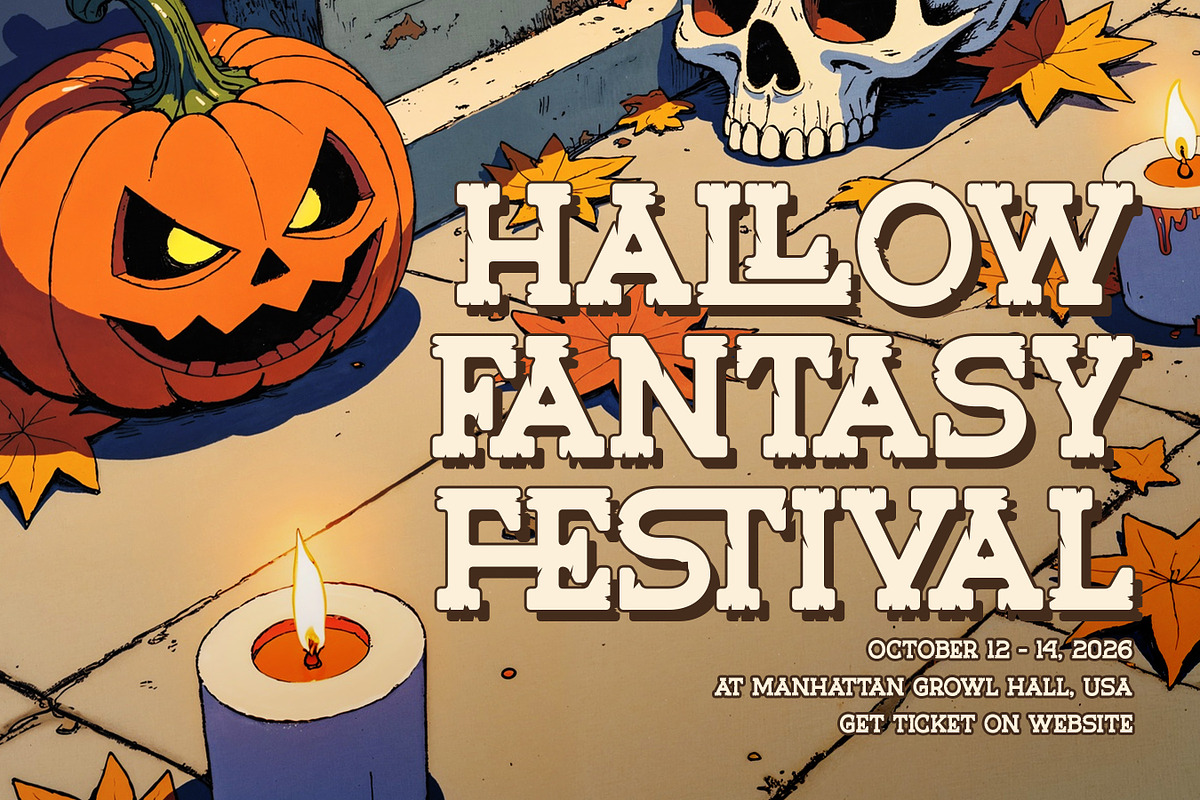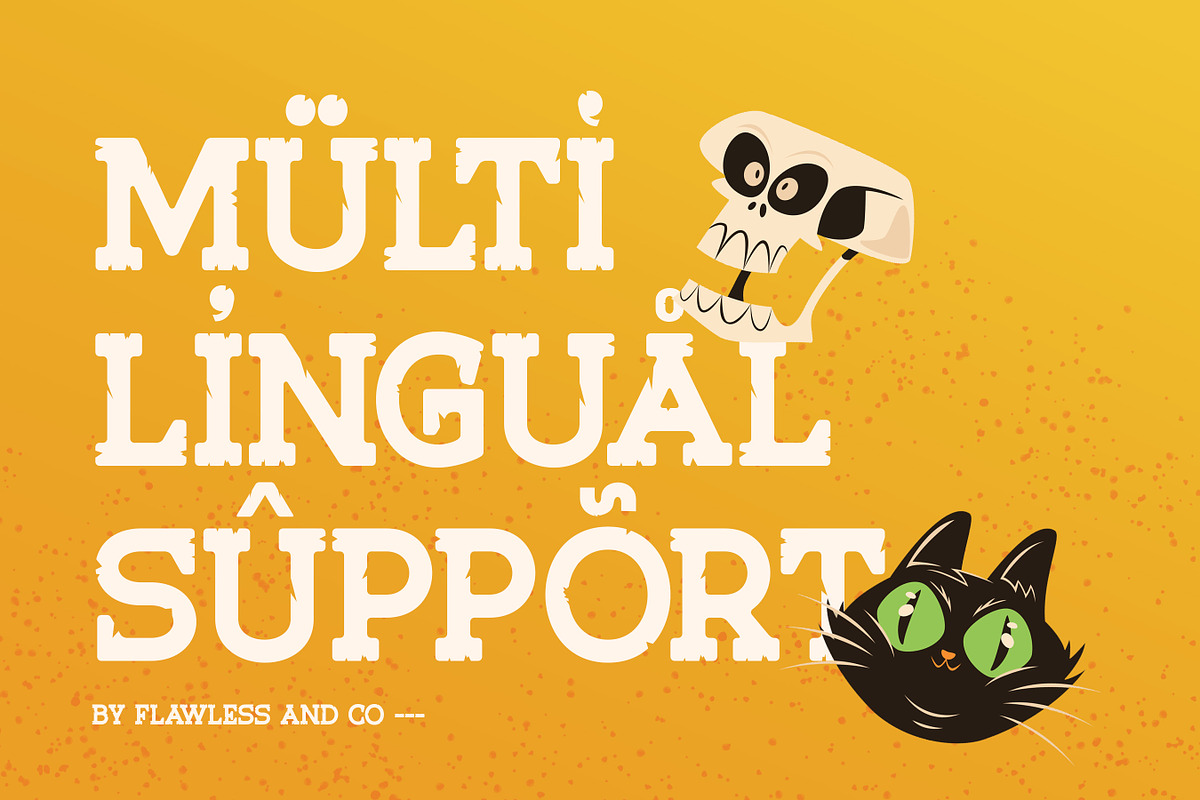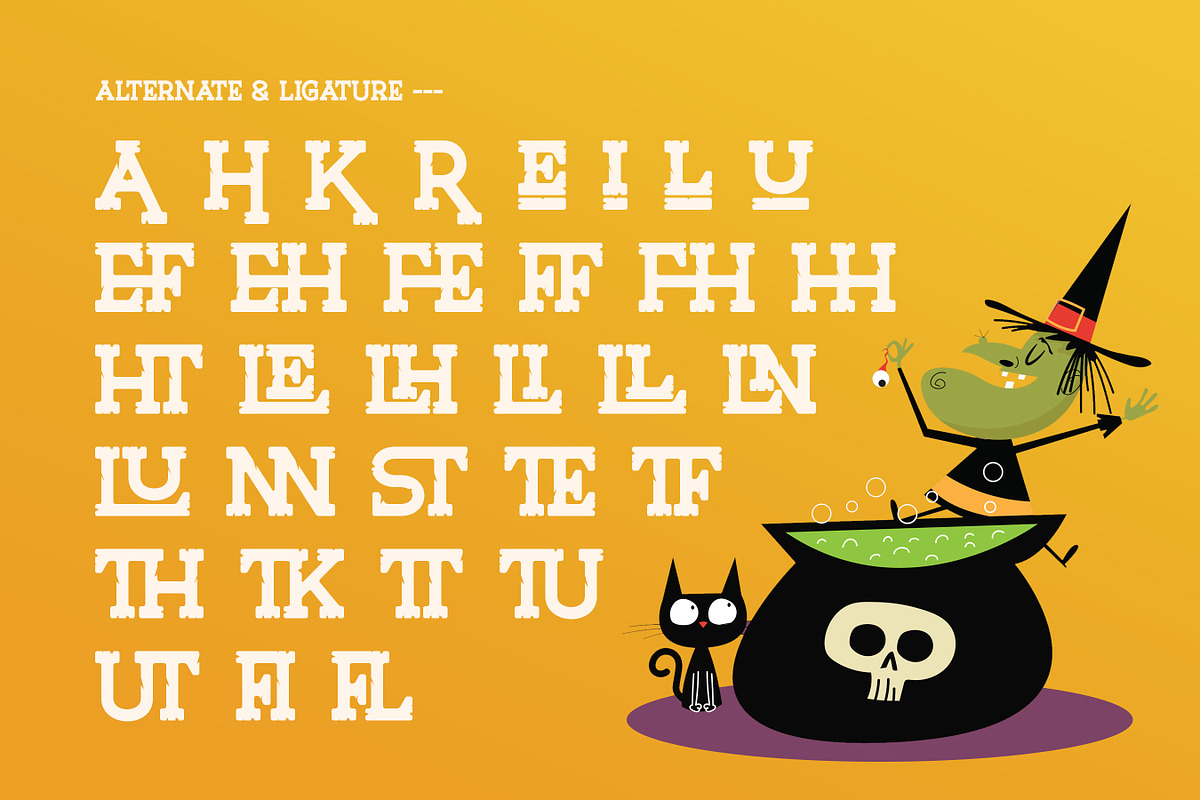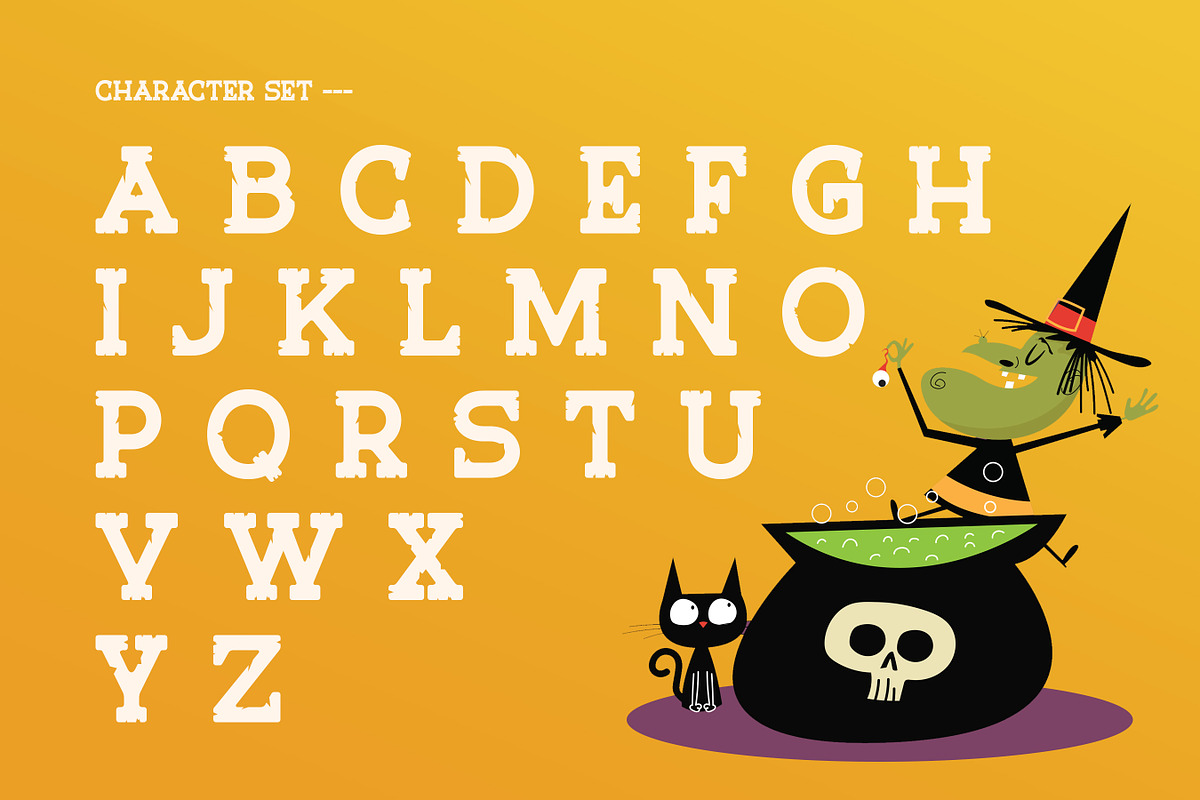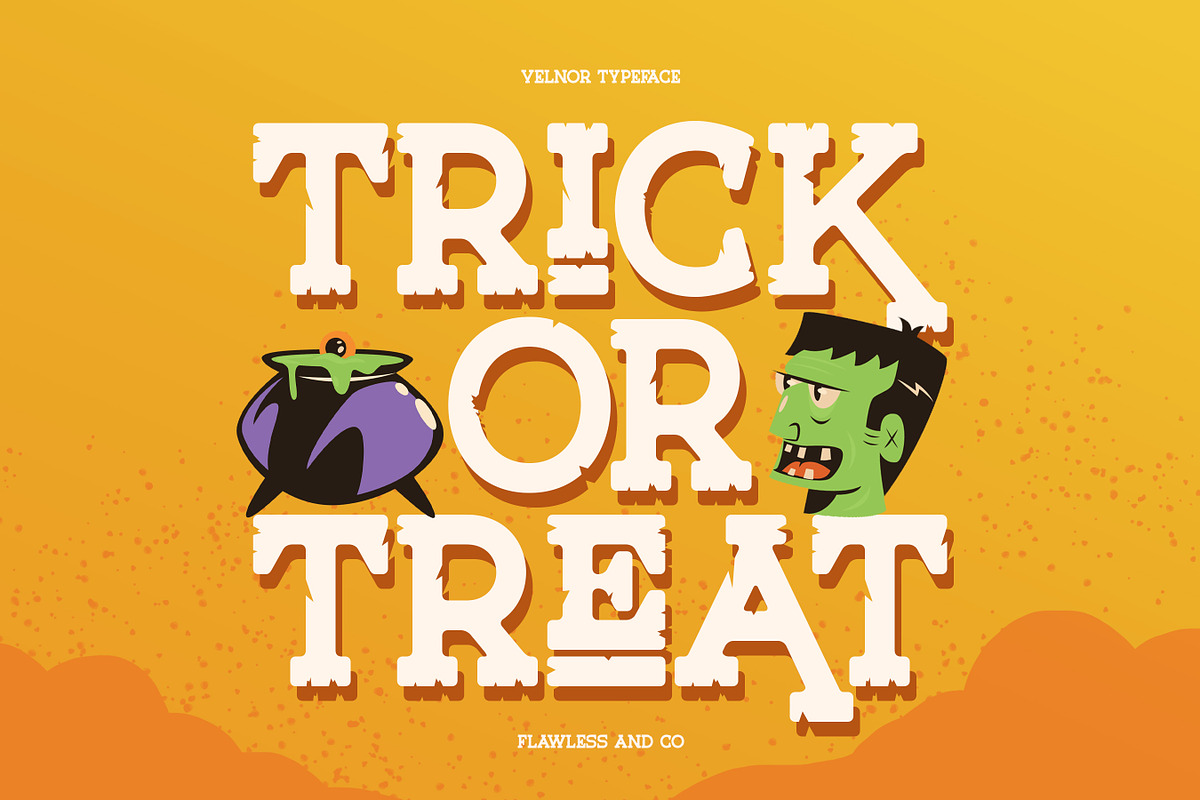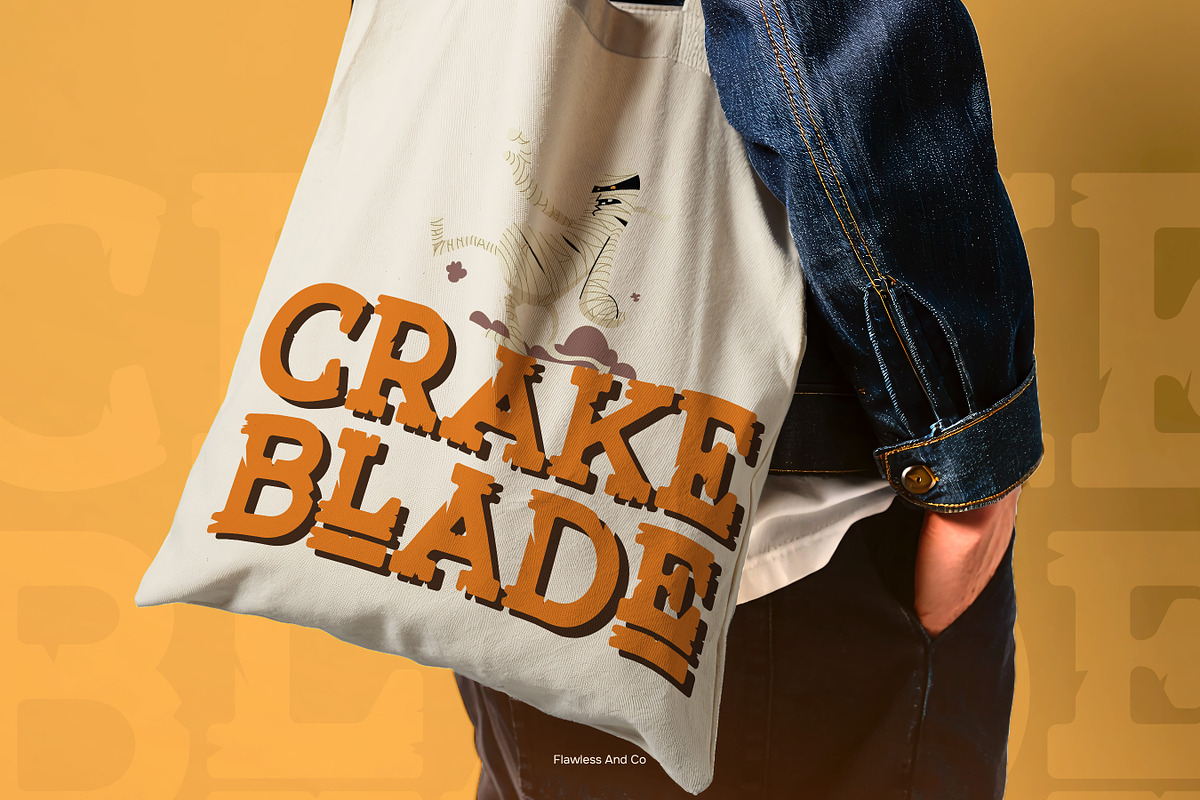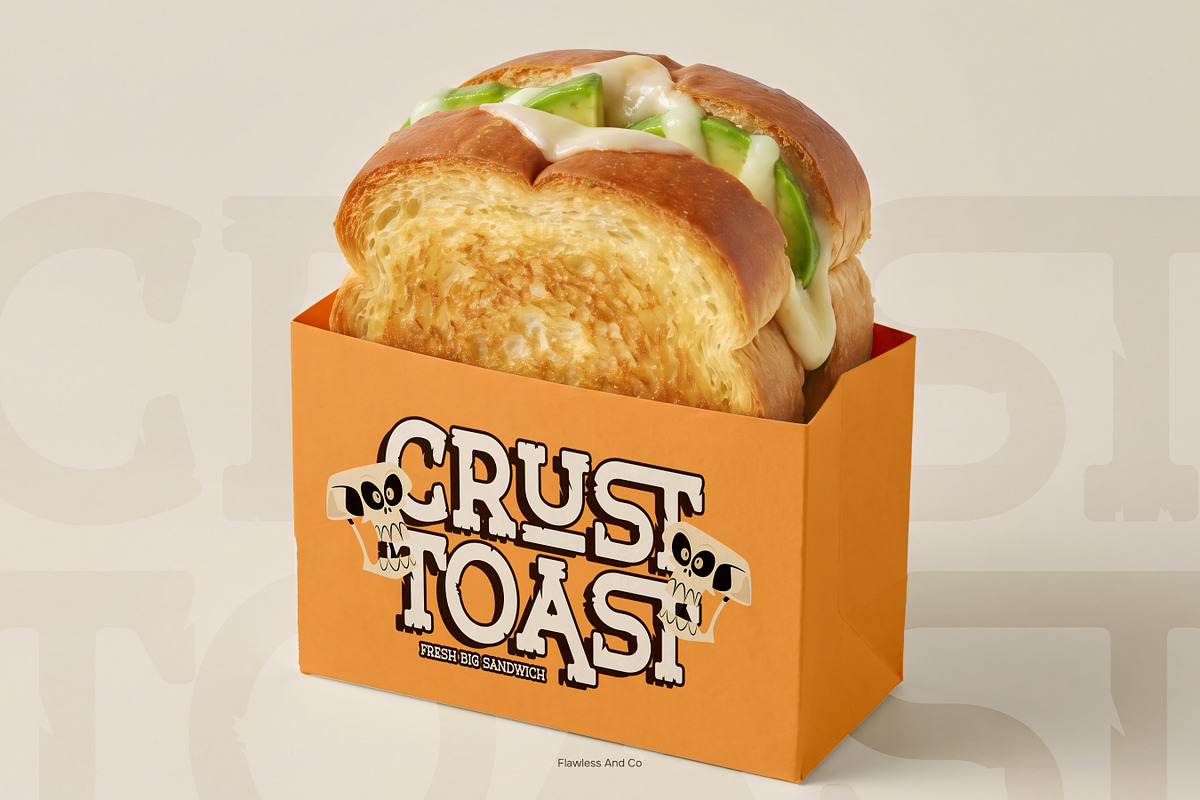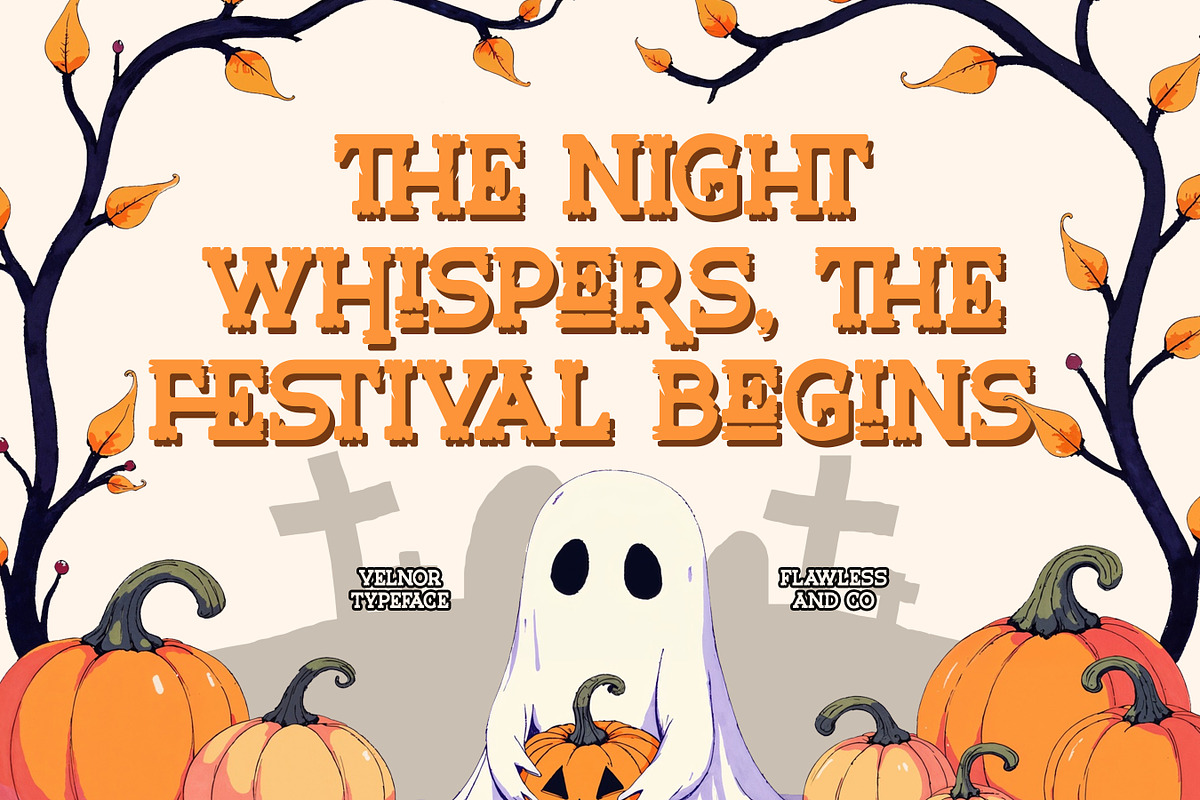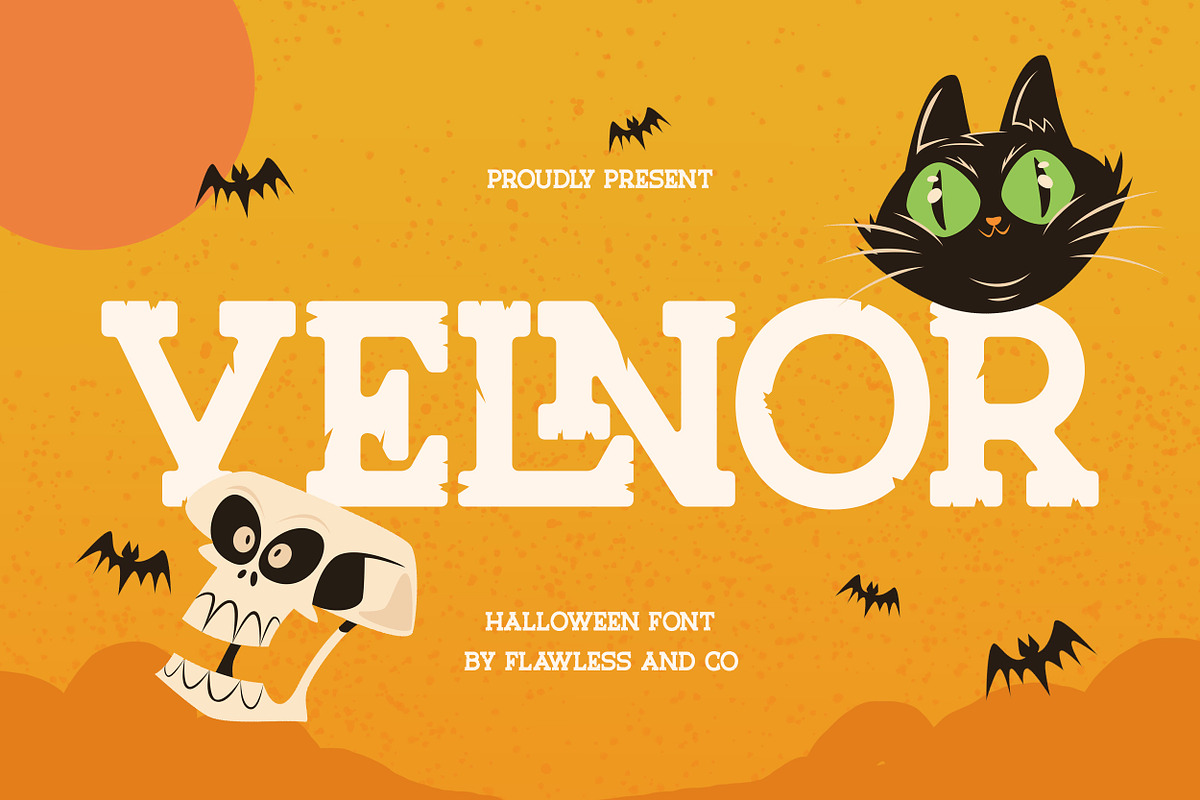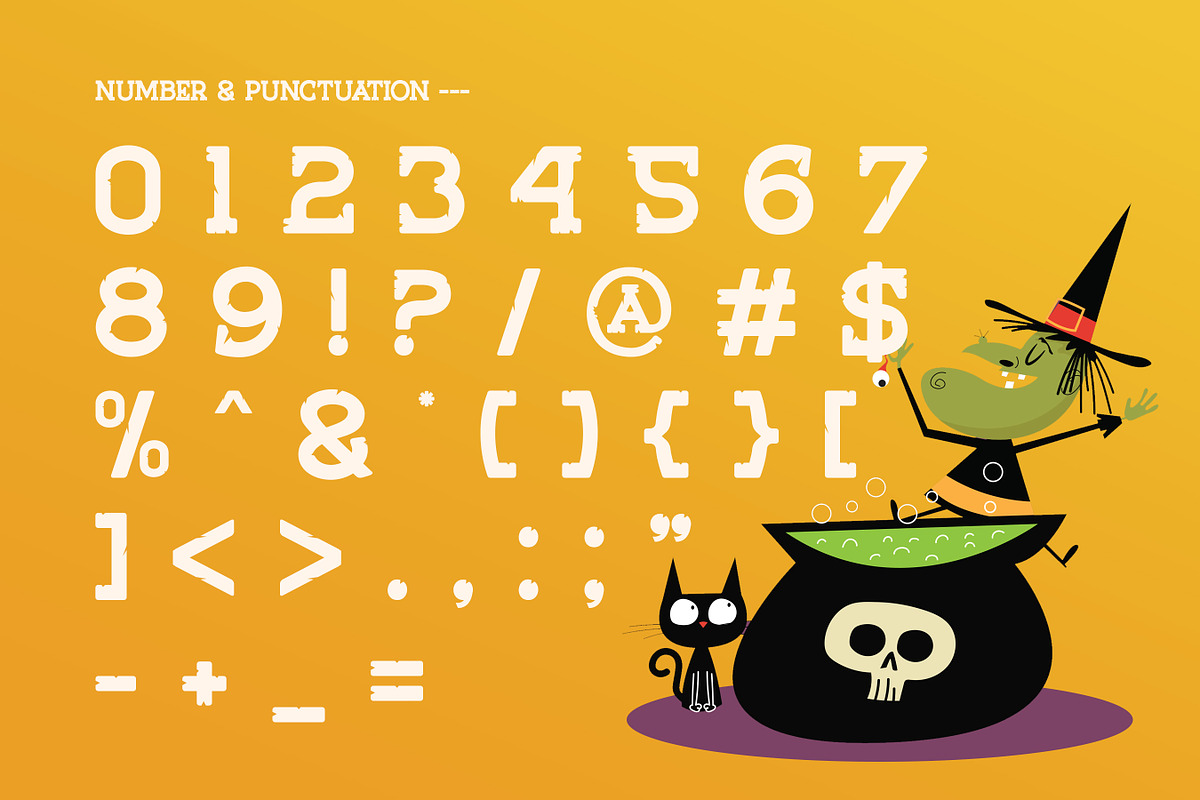
Velnor - Halloween Display Font
Velnor is a Halloween display font featuring bold serif letterforms with distressed edges and irregular decorative details. Its chunky structure and rough accents create a spooky yet playful visual character that fits Halloween-themed typography.
The letterforms combine classic serif proportions with chipped, jagged, and uneven details, giving the typeface a vintage-inspired horror appearance. Its strong forms are designed for large display sizes, making Velnor suitable for titles, headlines, posters, and other prominent typographic compositions.
Velnor works well with Halloween illustrations and seasonal elements such as bats, skulls, cats, ghosts, and haunted scenes. Its distinctive appearance can support both playful Halloween graphics and darker horror-inspired designs.
Uppercase & Lowercase Alternates & Ligatures Numerals & Punctuation Multilingual Support